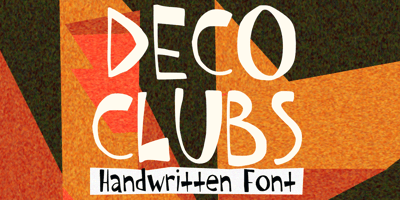
Deco Clubs
Deco Clubs font
Deco Clubs Font Family was designed by Gabriel Valentinus and published by Mvmet. Deco Clubs contains 1 styles and family package options. Deco Clubs is a artsy display font inspired by vintage art deco posters. You can use it for anything ranging from t-shirts, book designs, and greeting cards to stickers and posters, or anything that needs an art touch. Fall in love with its incredibly versatile style, and use it to create lovely designs!